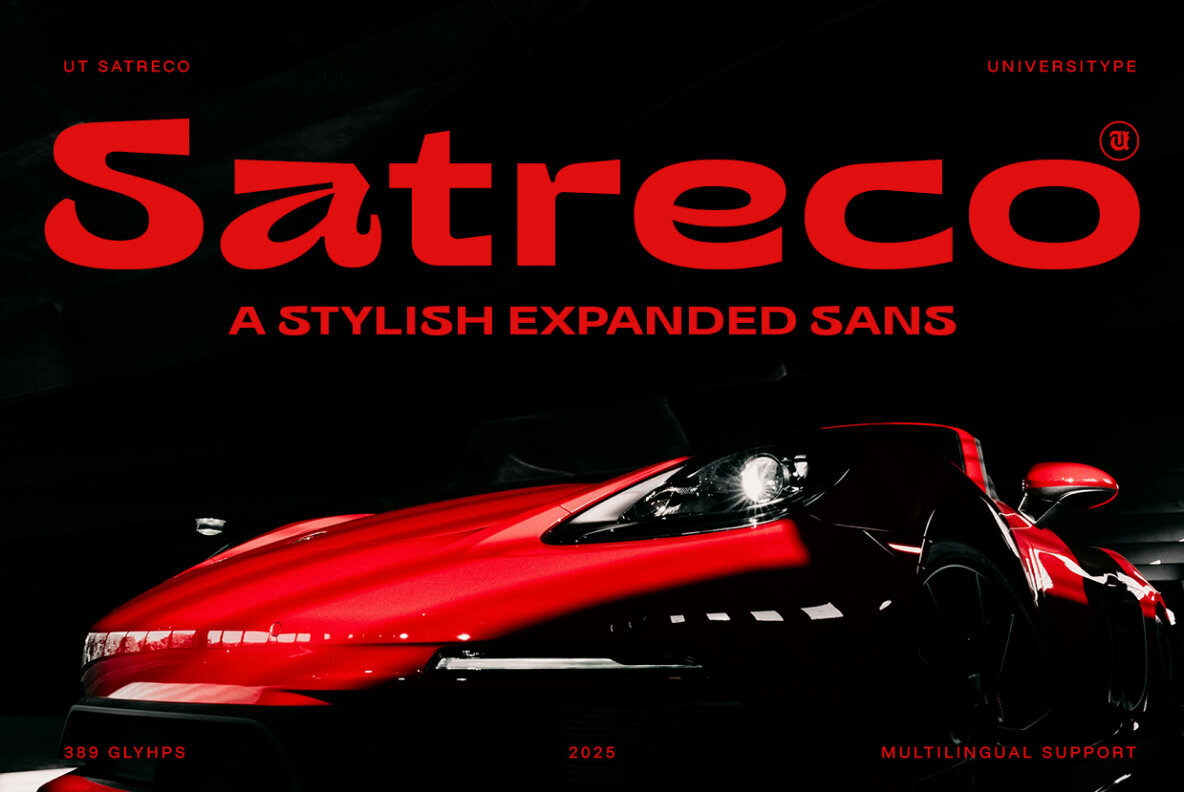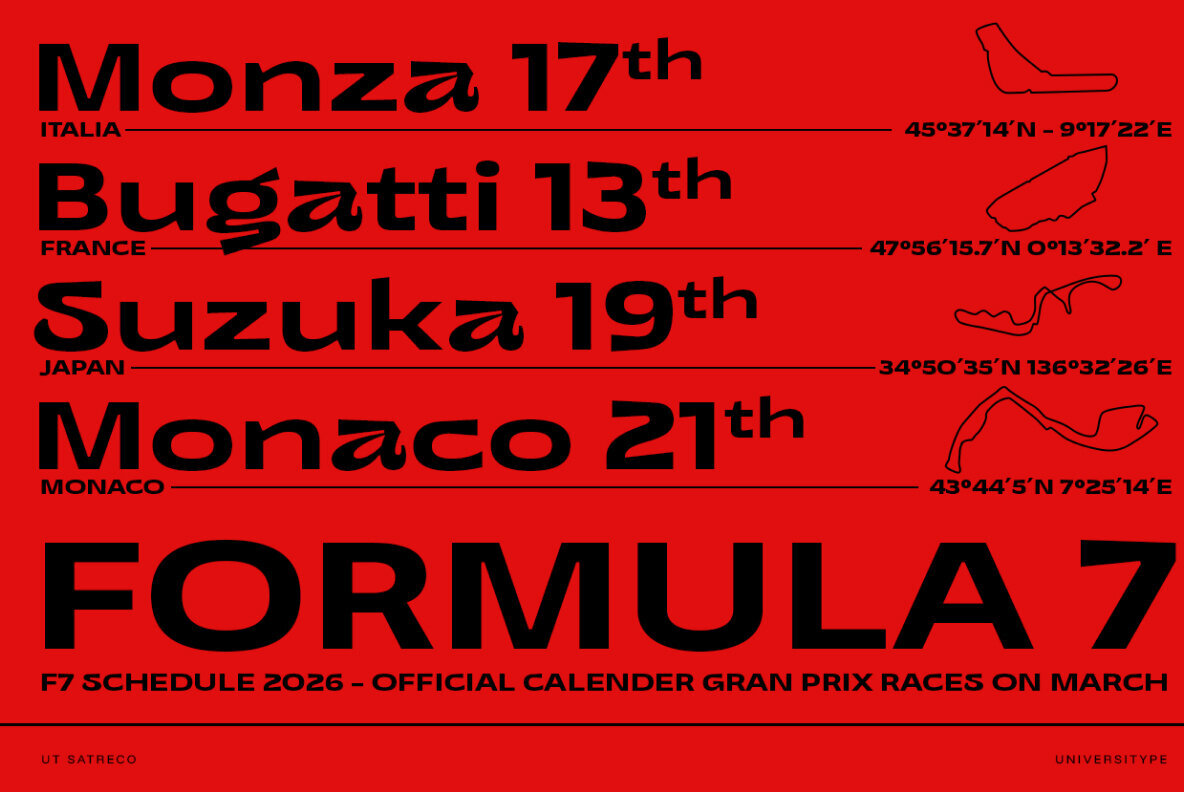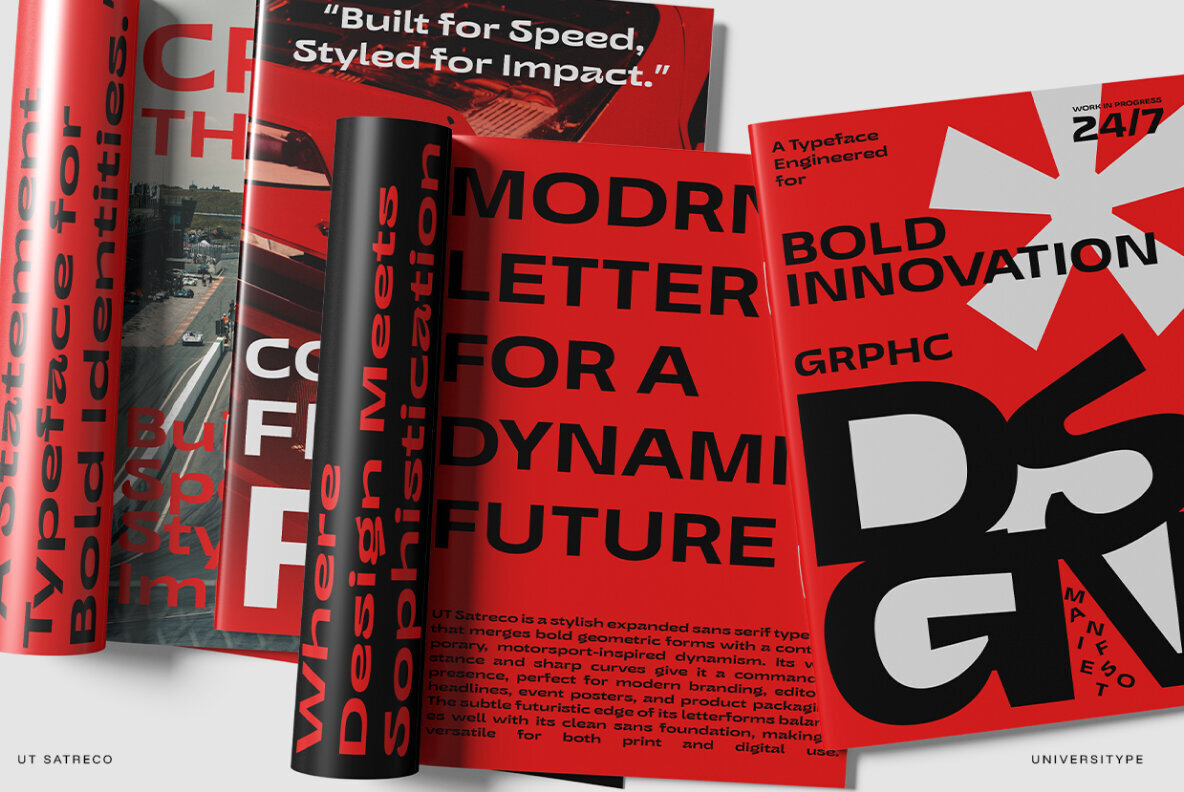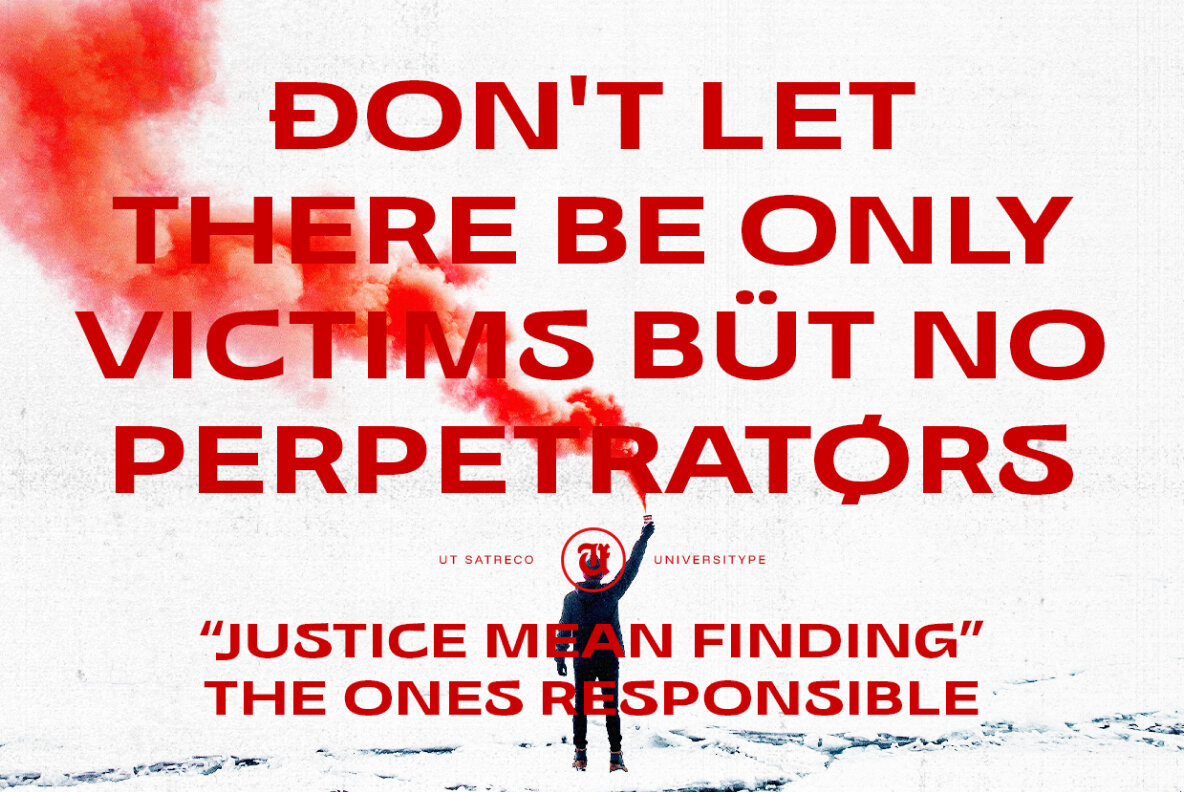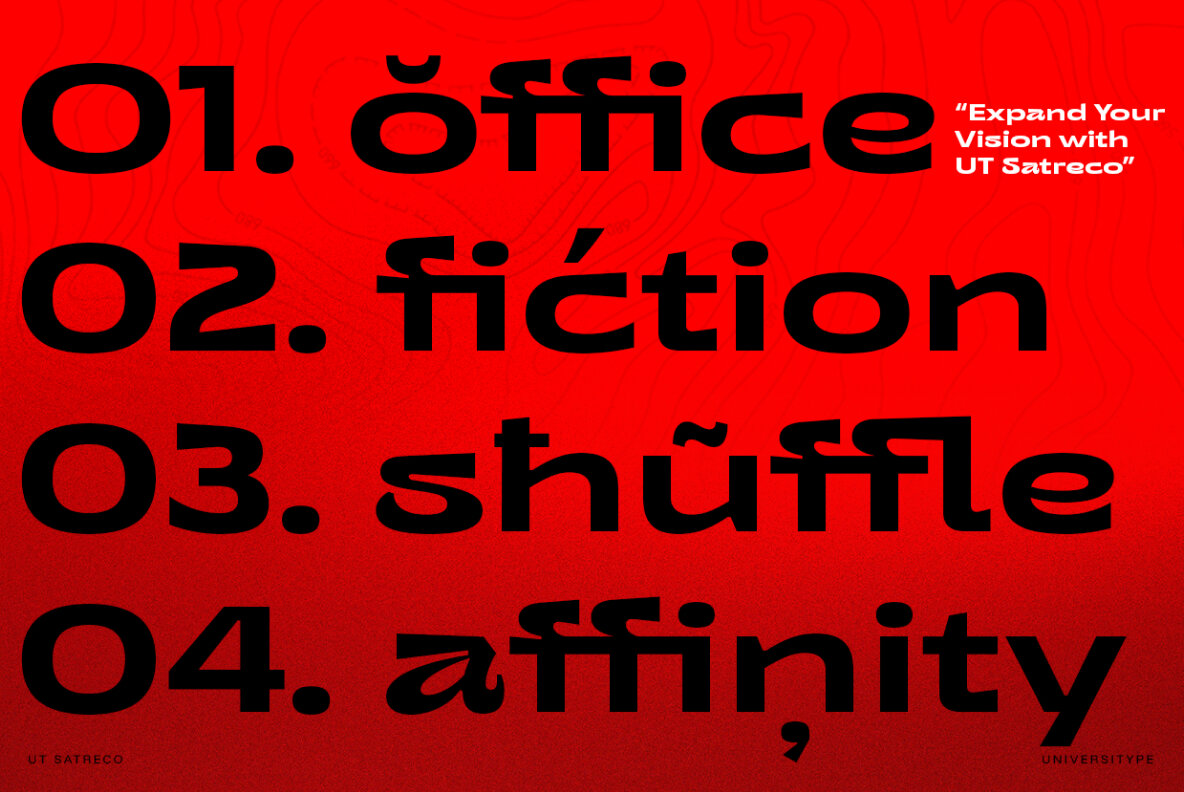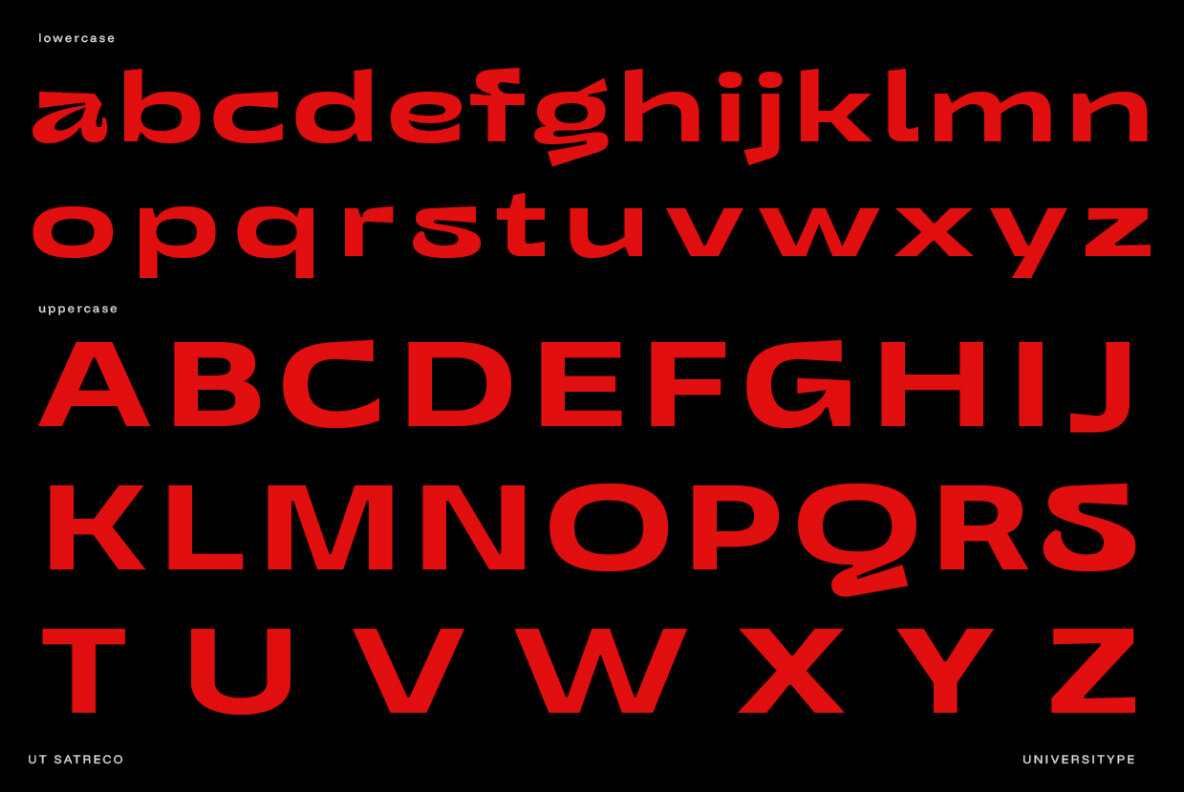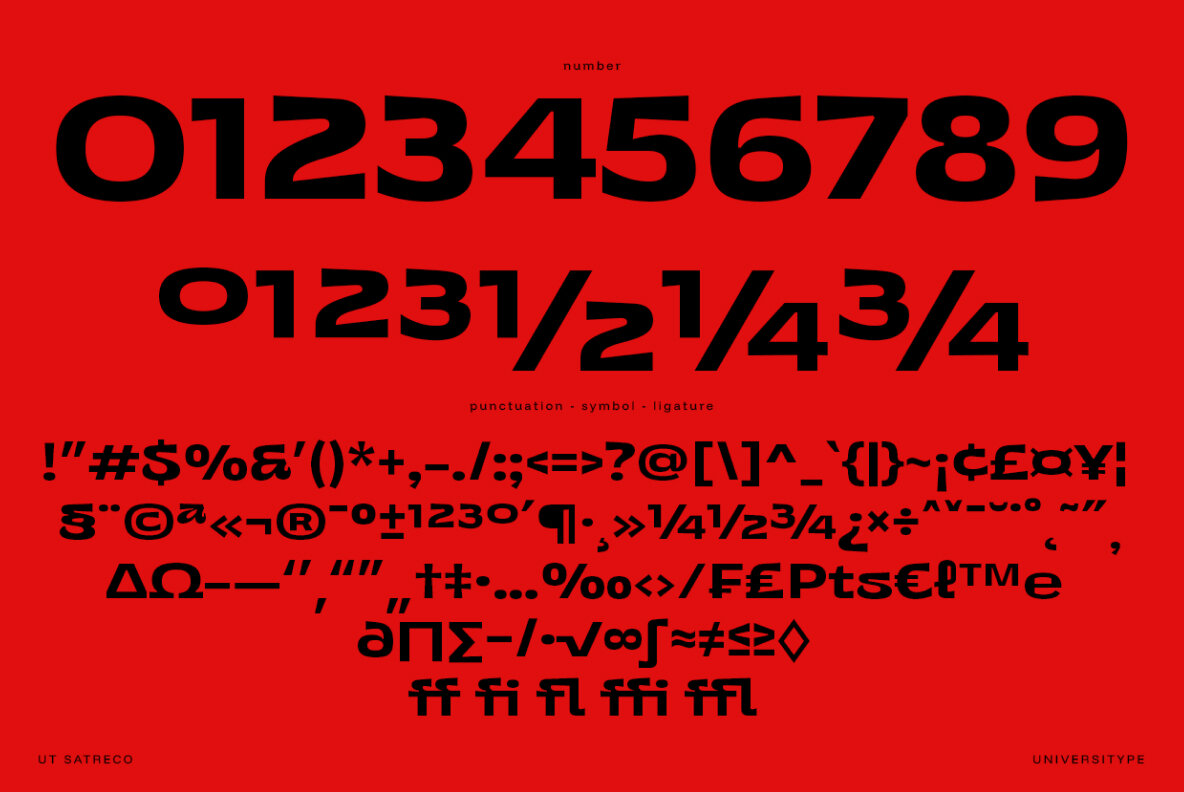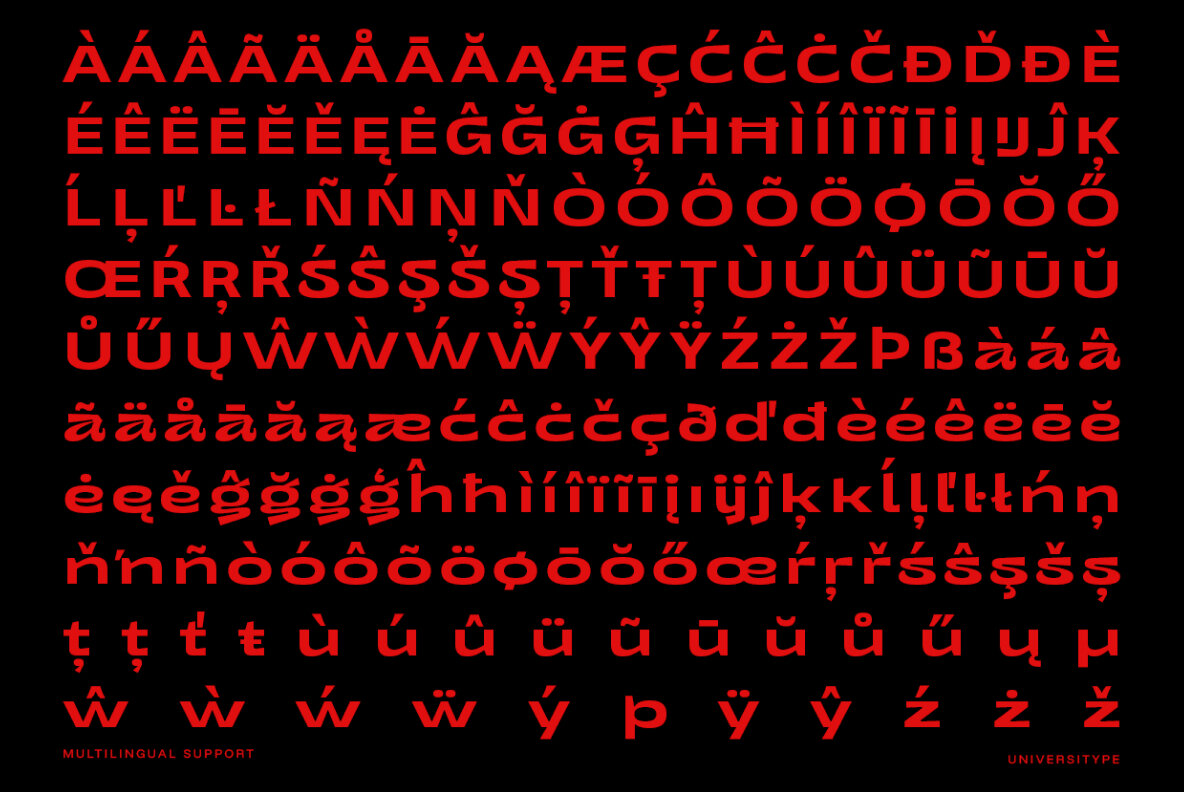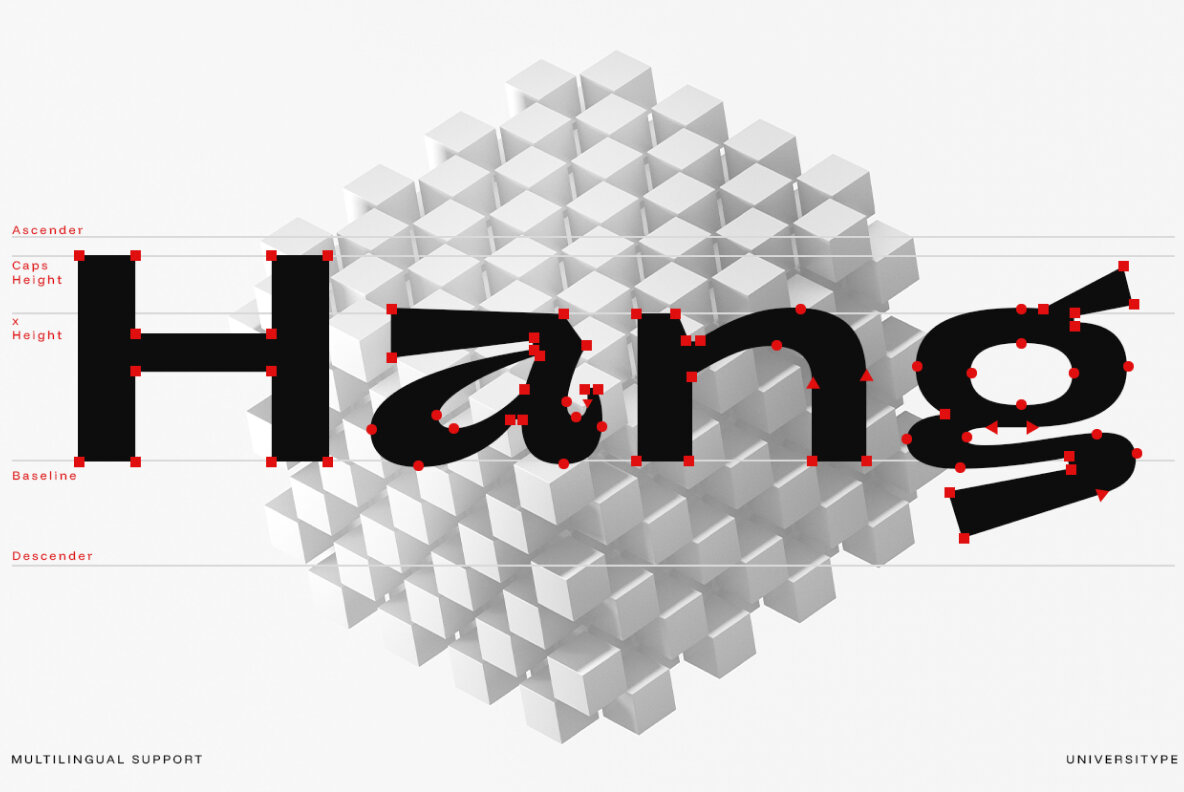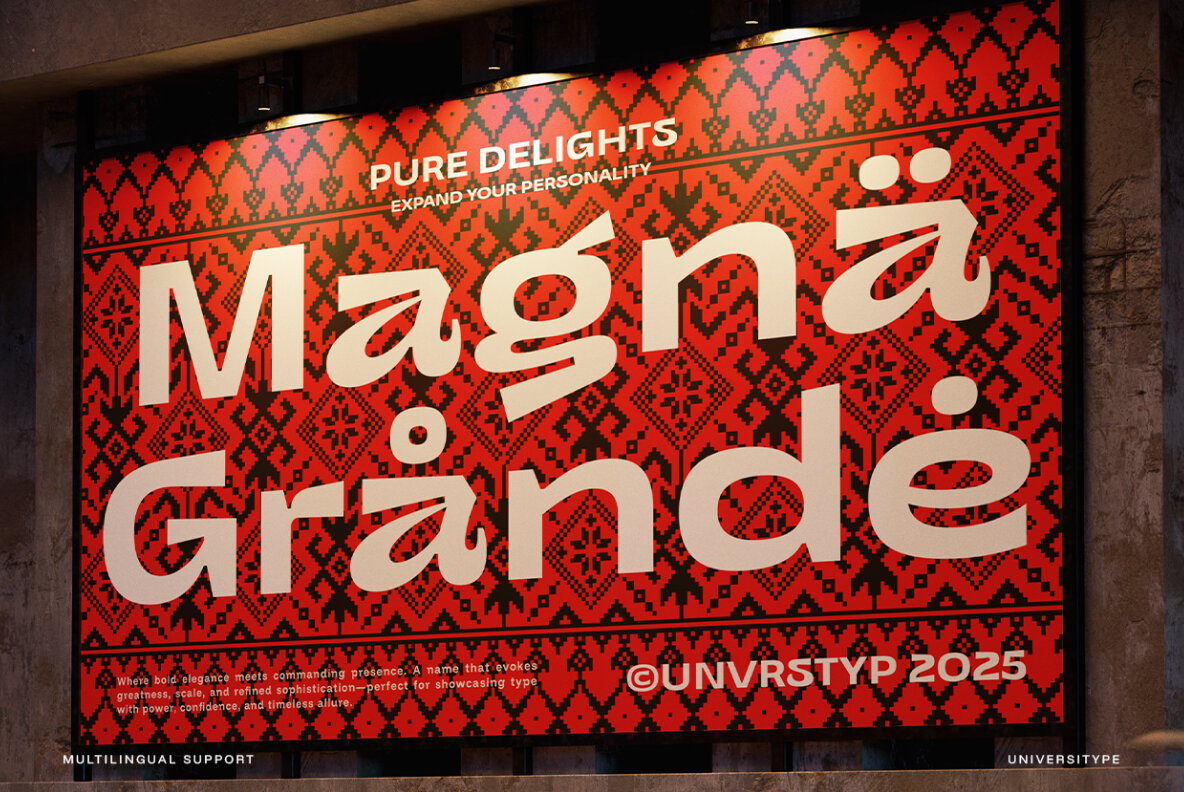
UT Satreco is bold, wide, and unapologetically modern, this expanded sans brings a powerful presence to any design. Its sharp curves and geometric structure echo speed, confidence, and futuristic flair, making it the kind of typeface that refuses to blend into the background. Whether it’s a headline, a poster, or a brand identity, UT Satreco grabs attention and holds it. UT Satreco is built for designers, brands, and creatives who want their visuals to feel bold and dynamic. Perfect for: The spark for UT Satreco came from the sleek world of motorsport—where speed, innovation, and bold design rule. Its wide stance mirrors the aerodynamic power of racing machines, while its sharp cuts and fluid curves capture the adrenaline of the track. It’s a font that feels fast even when standing still.